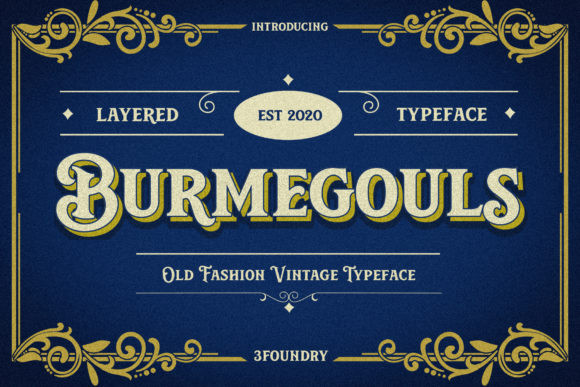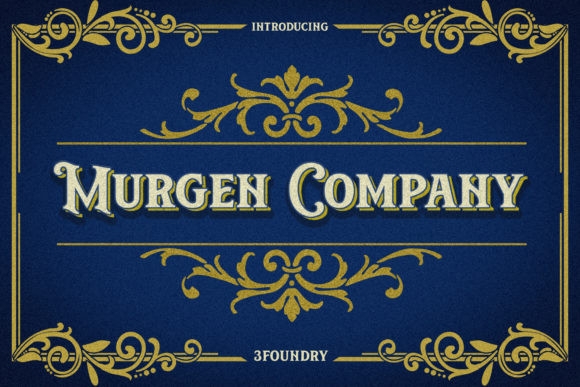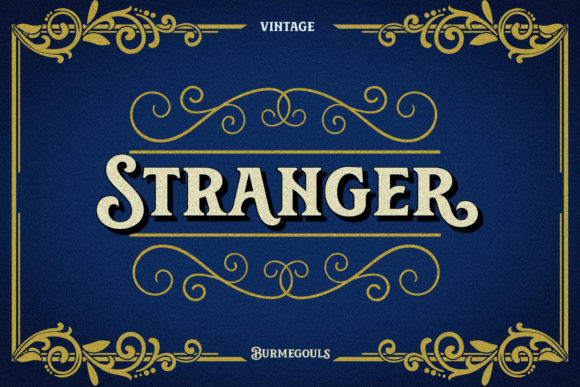
Burmegouls Font
Burmegouls is a bouncy and stylish serif font. It will add a fresh and contemporary touch to your designs. Add this unique font to each of your creative ideas and notice how it makes them stand out!